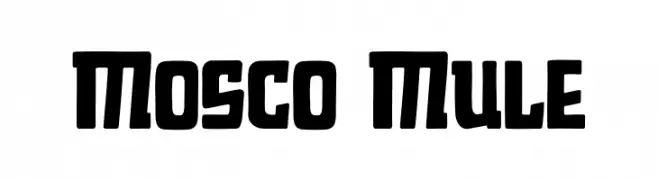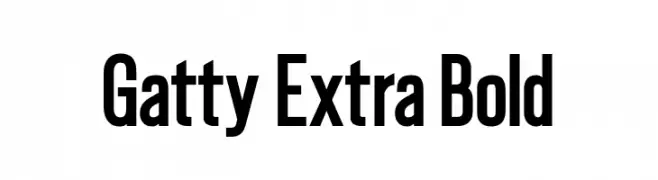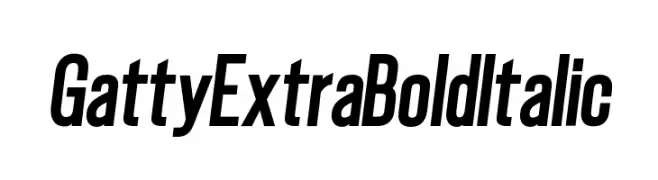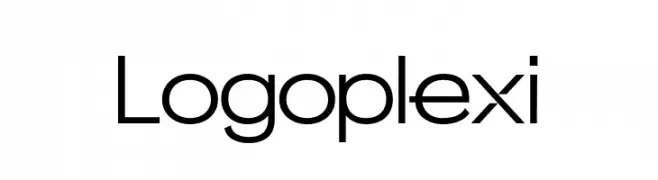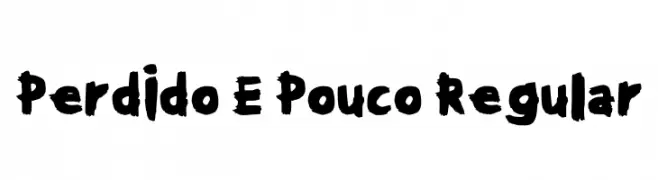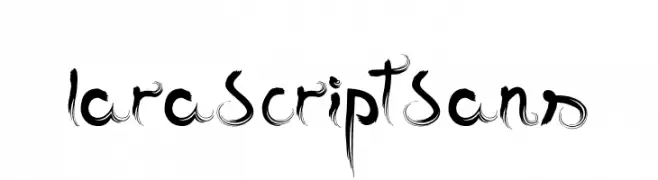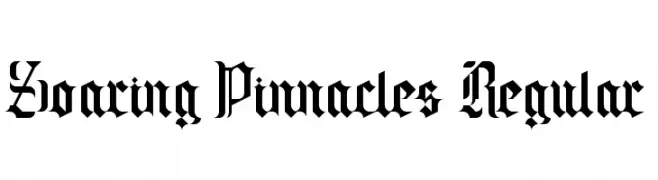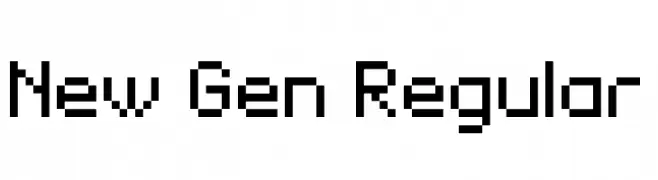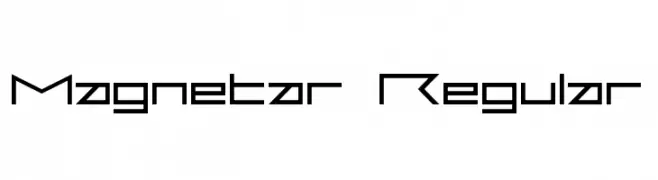
A bold, playful font with blocky, rounded characters.
A bold, modern font with strong geometric shapes and thick strokes.
A bold, italic font with a strong, condensed style.
A modern, geometric sans-serif font with uniform stroke widths and a sleek design.
A futuristic, pixelated font with a digital and geometric style.
A bold, brush-style font with a hand-painted, artistic look.
A dynamic script-sans hybrid with flowing, brush-like strokes and elegant curves.
A bold, Gothic-style font with intricate, angular designs and dramatic flourishes.
A pixelated, blocky font with a retro digital style.
A futuristic, geometric font with sharp angles and clean lines.